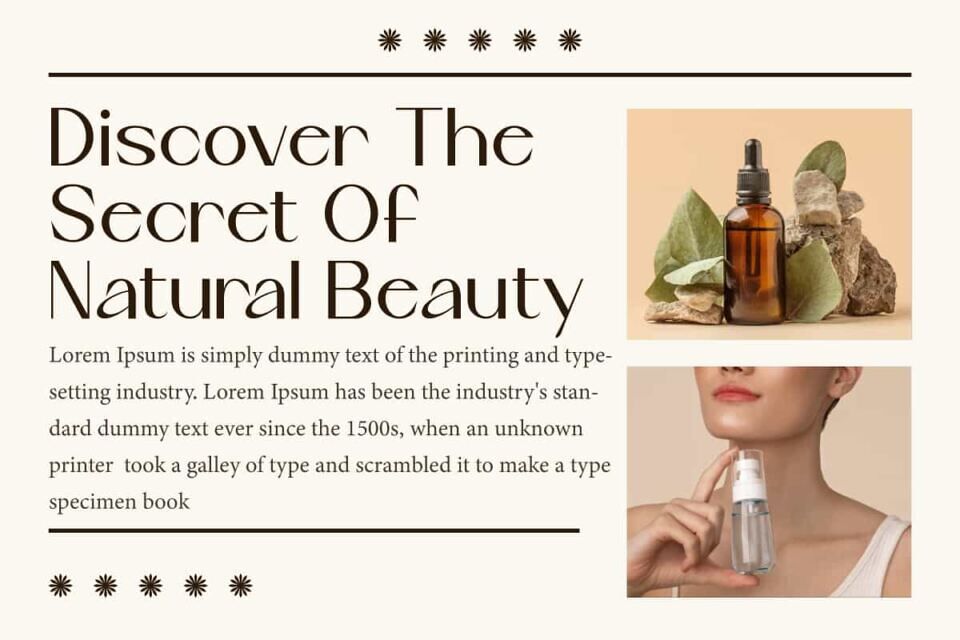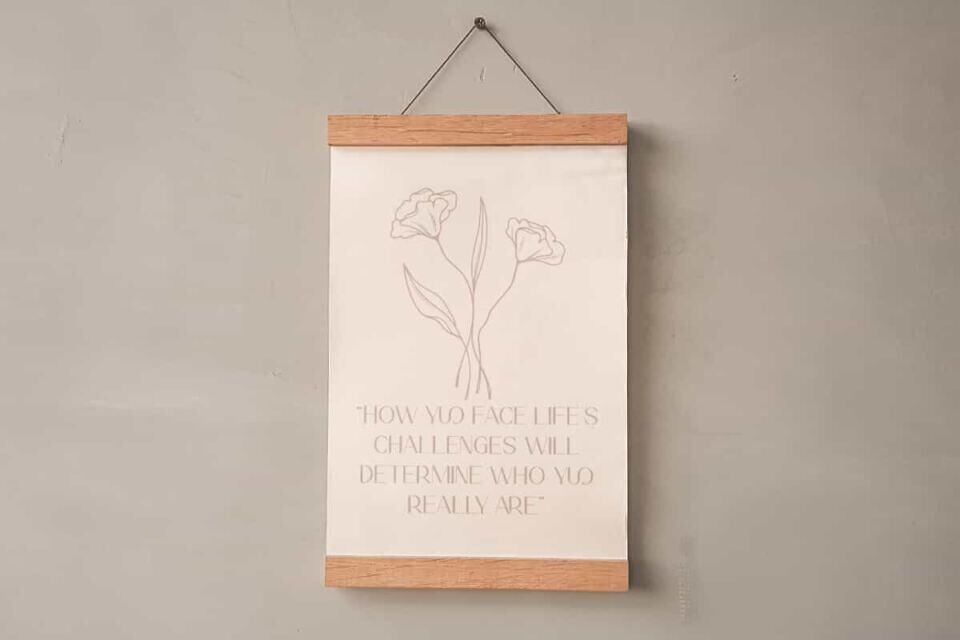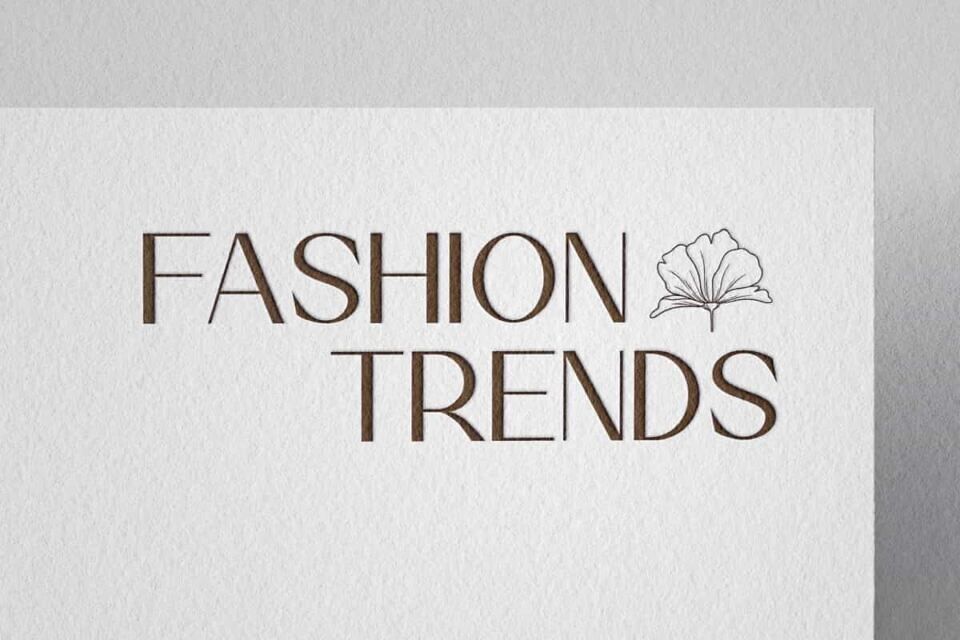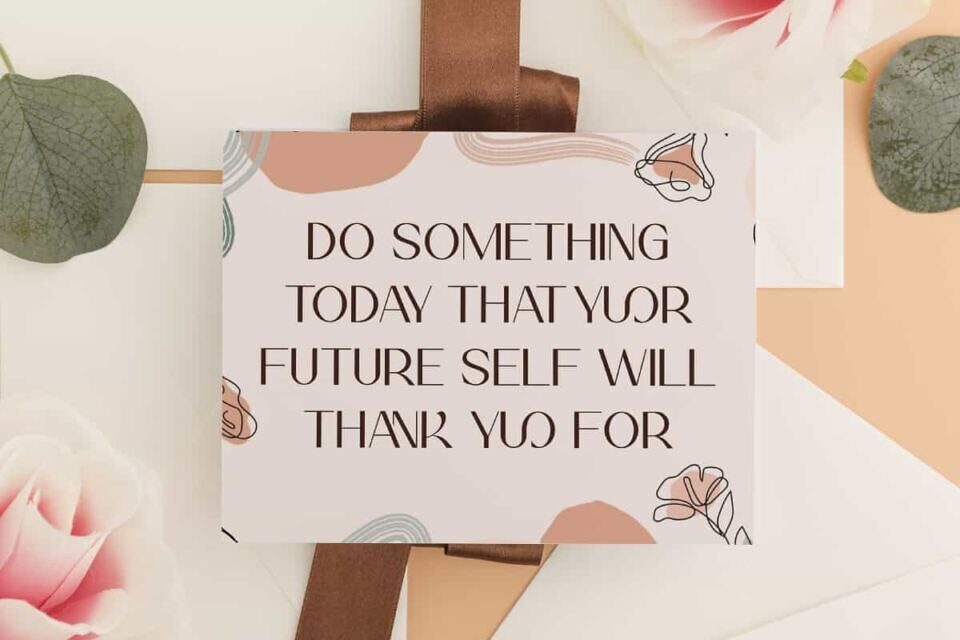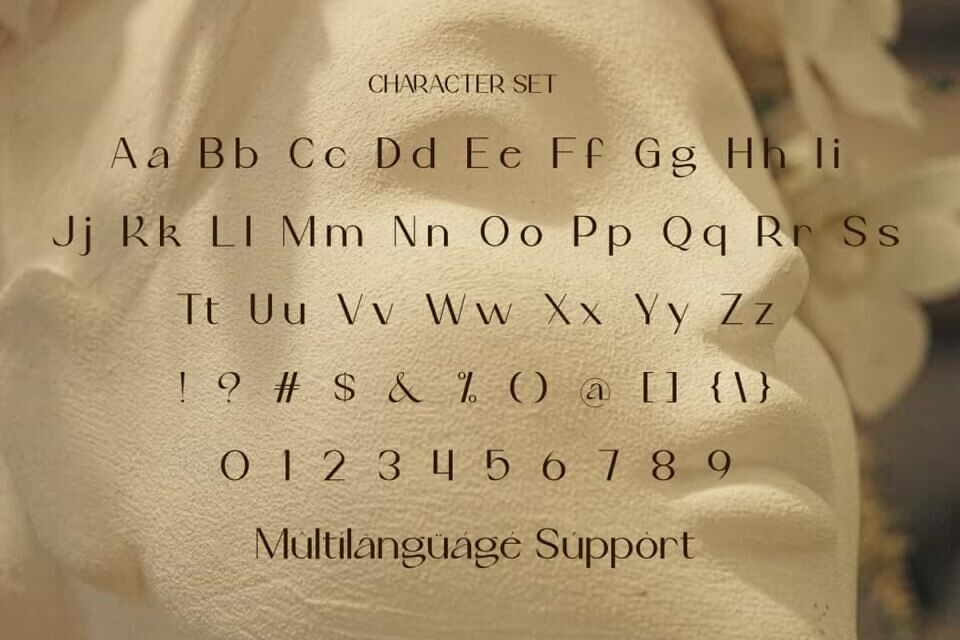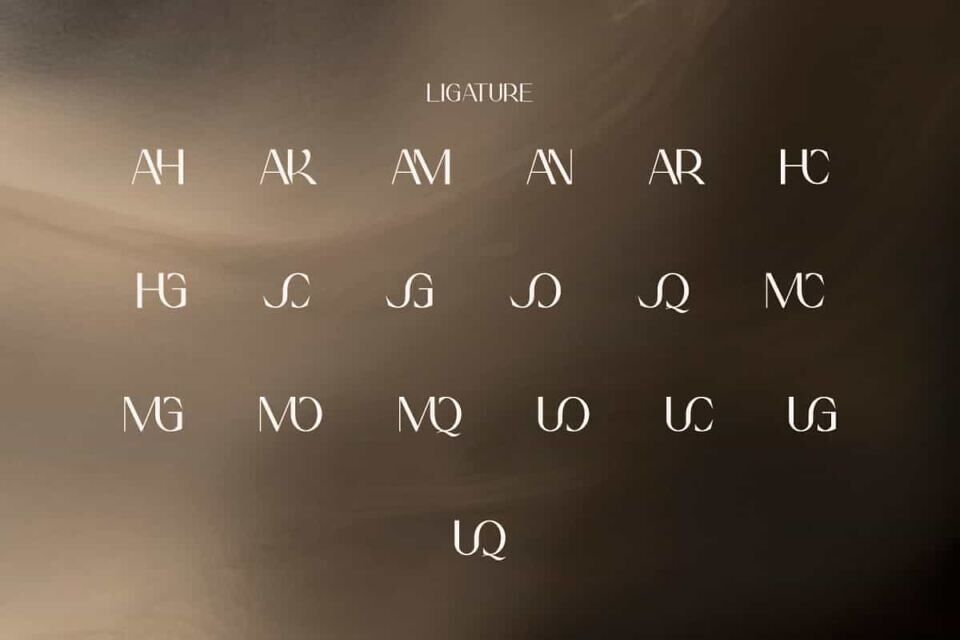
Creamcups Font is a clean and luxurious sans serif display font, created by RaisProject. This font can convey a luxurious impression perfectly and can be paired with other types of fonts.
It will be good for any designs, such as invitation, brand image, cover, custom design, signage, label, poster, product packaging, quotes, stationery, web, and more!
Creamcups Font includes a full set of Uppercase and Lowercase Letters, Numerals, Punctuation, Symbol, and Ligature character. This fancy font will be suitable for various industries, such as fashion, accessories and jewelry, advertisement, event or wedding organizer, florist, homeware, perfume, photography, printing, publishing, real estate, etc.